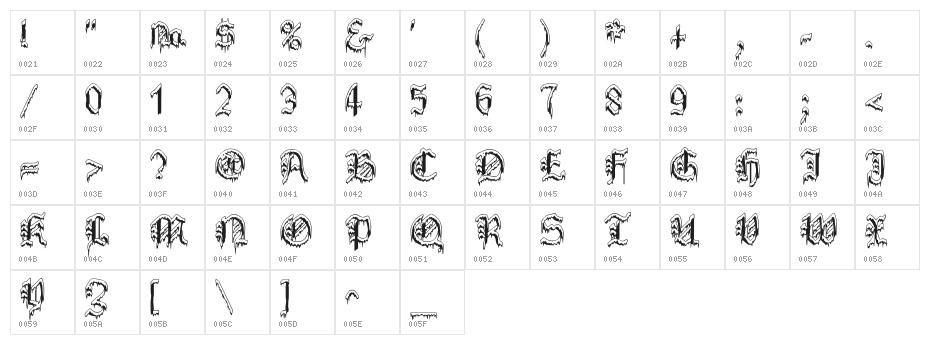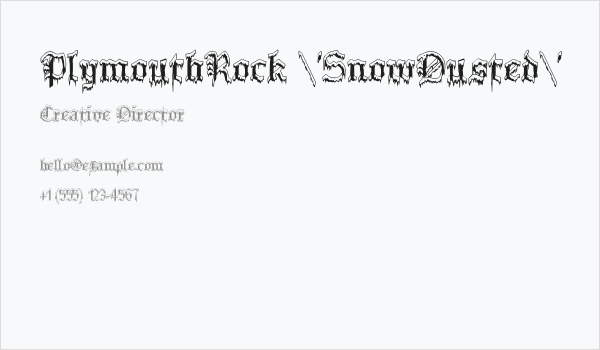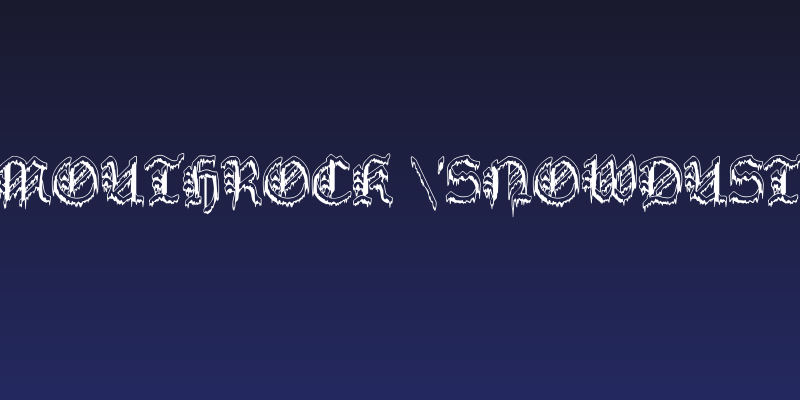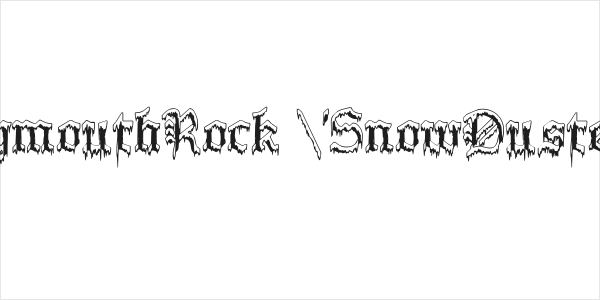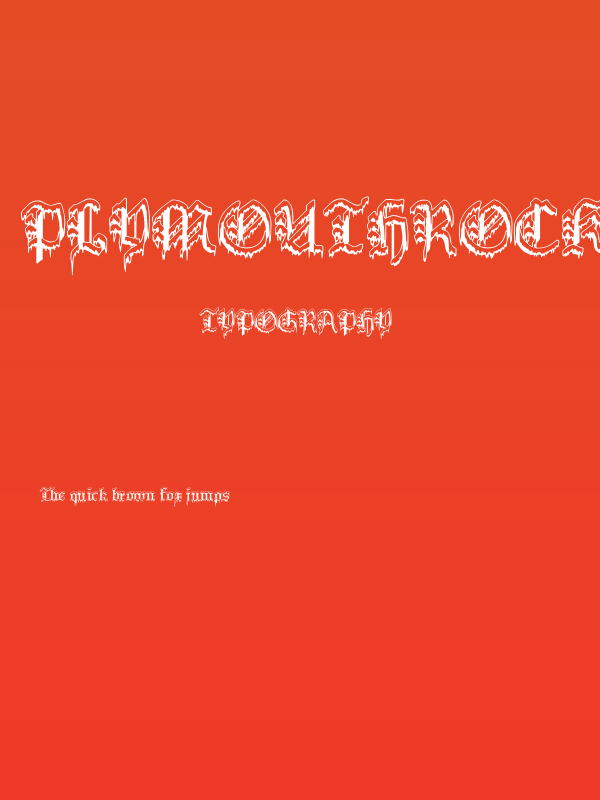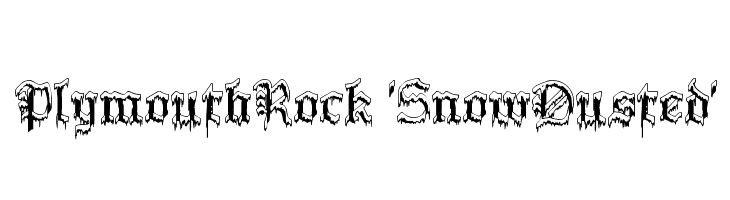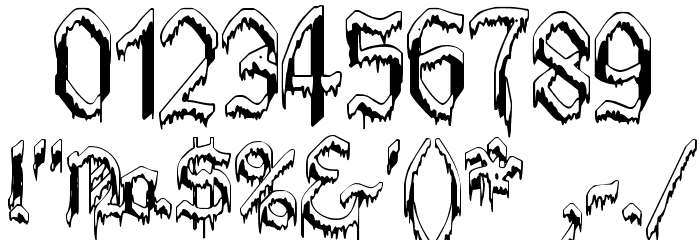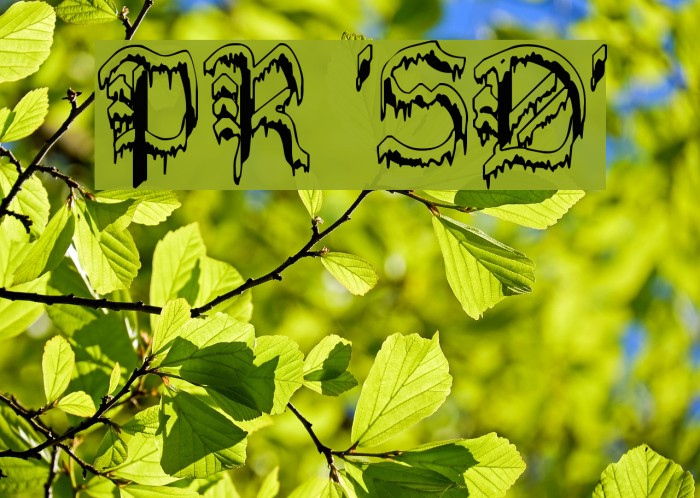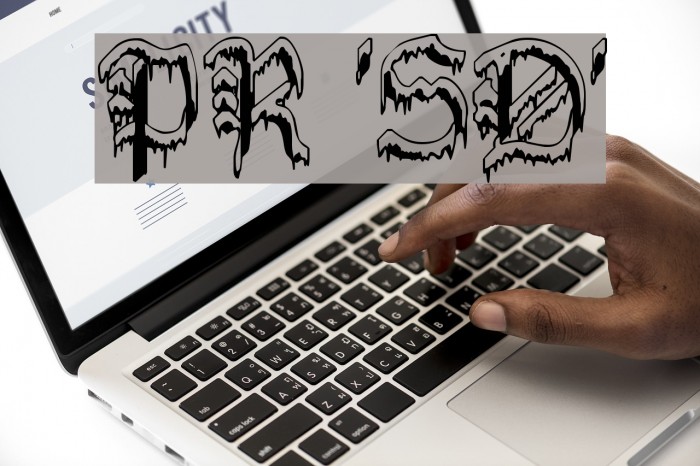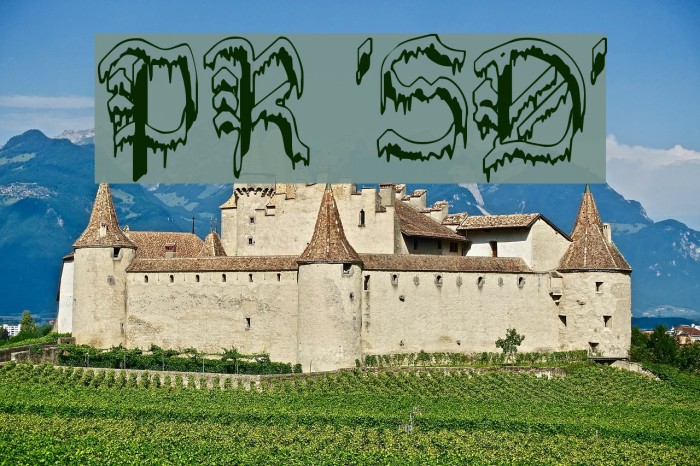
PlymouthRock 'SnowDusted' Font
PlymouthRock 'SnowDusted' Description
This font features a dramatic and decorative style, reminiscent of Gothic or Blackletter typefaces, with an added snowy effect that gives it a unique, frosty appearance. The letters have a bold, angular structure with sharp edges and pointed serifs, creating a striking visual impact. The snow-dusted effect adds an element of whimsy and seasonal charm, making it ideal for winter-themed designs. The uppercase and lowercase letters maintain a consistent style, with numerals and special characters also reflecting the frosty design. The overall look is both vintage and festive, perfect for capturing attention.
| Proposed Projects | Ideal for holiday cards, winter event posters, festive branding, and themed invitations. |